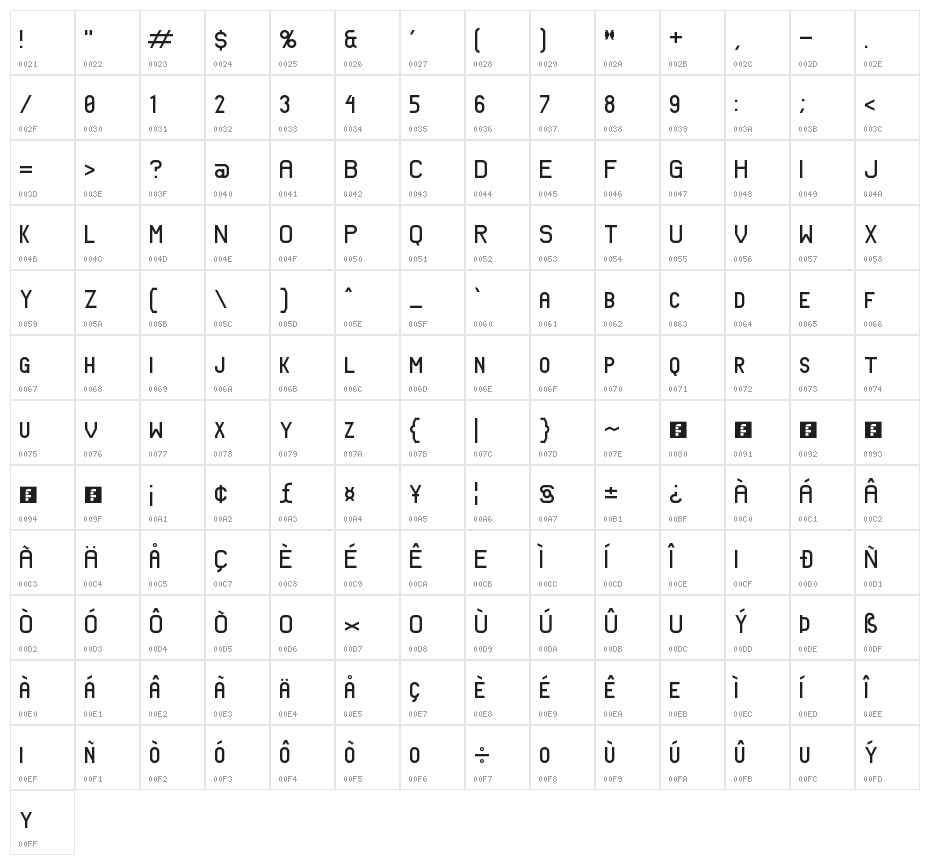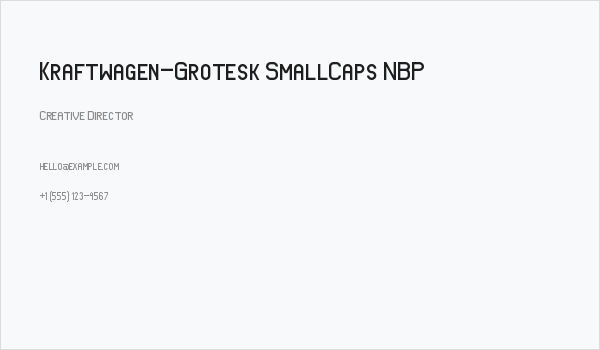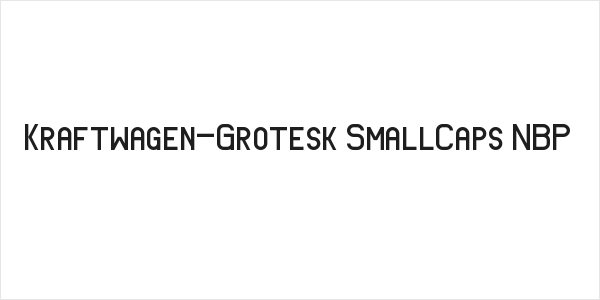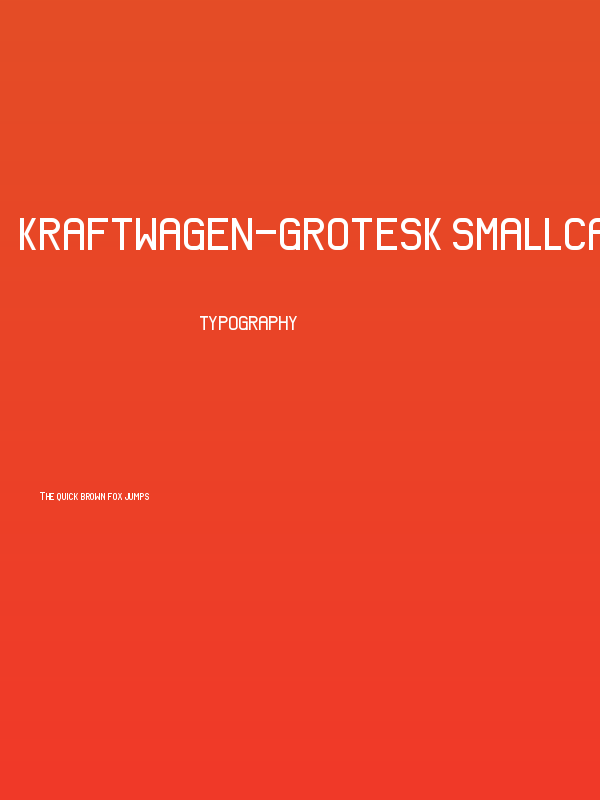
Kraftwagen-Grotesk SmallCaps NBP Font
Kraftwagen-Grotesk SmallCaps NBP Description
This font features a bold, geometric sans-serif style with uniform stroke widths, giving it a clean and modern appearance. The characters are designed with a slightly condensed width, enhancing readability while maintaining a compact form. The uppercase letters are prominent, with consistent height and spacing, creating a harmonious and balanced look. The numerals are clear and distinct, matching the overall aesthetic of the alphabet. Special characters are well-integrated, maintaining the font's cohesive design. This font's simplicity and clarity make it versatile for various applications.
| Use Case | Headlines, Logos, Signage |
| Proposed Projects | Ideal for branding, signage, headlines, and digital interfaces where clarity and modernity are key. |